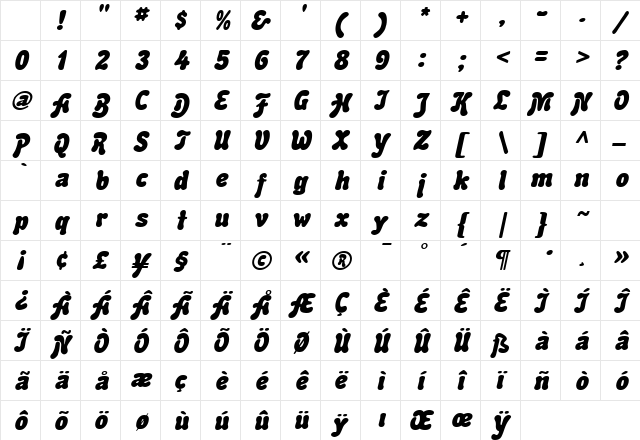
Complete BubbleSoft Italic glyph index. Displaying only characters natively supported by BubbleSoft Italic font.
BubbleSoft has an approachable, lighthearted character - its loose, expressive forms are well-suited to children's content, casual branding, and fun-first design. The slanted form adds forward momentum and visual energy.
Font Pairing: Pairs well with a rounded or humanist sans for body copy, maintaining the friendly tone without relying on BubbleSoft to carry extended reading.
Pro Tip: Use BubbleSoft at larger display sizes where its expressive character can land. Pair with a clean, simple sans for body copy to maintain readability.